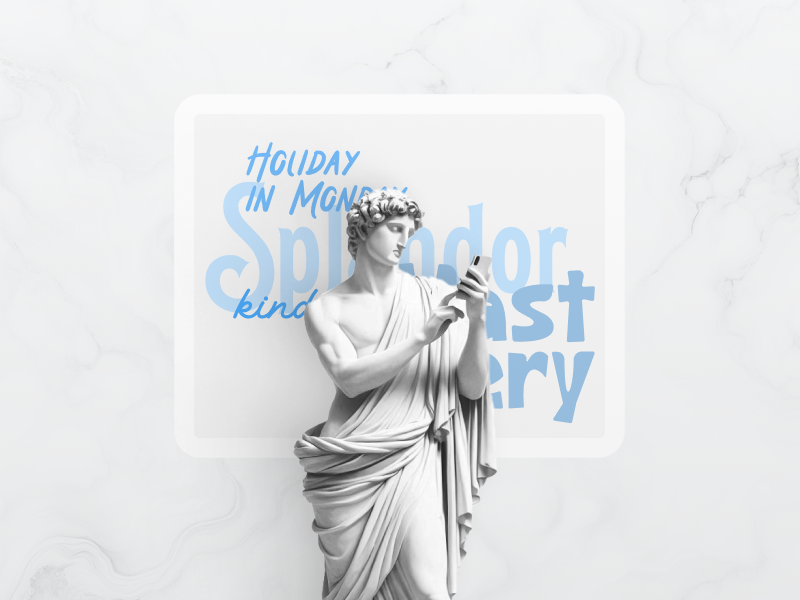
Are you looking for a unique design element to give your project a fun and whimsical feeling? Have you already considered using playful fonts?
While most website designs are built using a handful of the same classic fonts, there are millions of typefaces out there waiting for you to choose them and elevate your design.
Typography is at the core of any design project. The font you choose for your design, regardless if it is for website homepages, logo designs, or social media posts, says a lot about the brand identity and values. So, if you want to give your design a fun and frisky style, playful typefaces are a good option.
However, choosing a playful font can present some challenges, especially in finding a balance between playfulness and professionalism.
In this article, I’ll share some crucial steps my Los Angeles web design agency follows to ensure selecting the best font for a project. Plus, you’ll find a list with 14 of the top playful fonts you can use to spark creativity in your new design.
The importance of typography in web design is paramount. Depending on the font you choose, you can paint a unique narrative that communicates the brand’s essence and mission. This crucial design element affects how viewers perceive the design, and when chosen right, it can create a memorable and enjoyable user experience.
Typically, most designers stick to traditional typefaces. However, if you want a brand to stand out for its uniqueness and creative personality, a more unconventional font is the right path. Playful fonts can enhance a business’s branding and foster deeper connections with its target audiences.
But how do you know if playful typefaces are a fit? And how can you pick the best one? These are some basic steps I follow when selecting a font for a client. I adapted these tips to make it more relatable to a playful font search:
Just like colors and shapes, typography has a psychology behind it. Each font family conveys a unique feeling, from authority and luxury to innovation and playfulness.
There are 4 major font style categories you can choose from:
Understanding the psychology behind a font can help you make a smart choice and inject your design with the emotion you are aiming for. As you can see from those 4 categories, if you are looking to give your design a playful vibe, display and sans-serif fonts are excellent options, while some script fonts can also do the trick.
Each brand has a unique message and mood. It’s crucial that all design elements, including typography, support the image the brand wants to show to its audience.
Before choosing a font, it’s essential you understand the brand’s identity so you can find a typeface that matches its tone. You can start by brainstorming some words that describe the business. For example, if the brand identifies as “creative,” “fun,” “interactive,” “educational,” and “friendly,” then playful fonts are a match.
Besides understanding the brand’s identity, it’s fundamental to get to know your target audience. Knowing who will consume your design is crucial to selecting an appropriate font.
Ask yourself, “Who will view or use my design?” Usually, the client will give the designer a brief with the ideal audience demographics beforehand. Use that information to learn about the users’ expectations and which font styles better adapt to their needs.
Typically, young audiences respond better to bold, fun fonts. Playful fonts also work for projects aimed at creative individuals seeking innovative and positive offerings.
Regardless of how artistic and alternative the design is, customers should still be able to easily understand and read your design. Display fonts tend to be more creative and jazzy, but that doesn’t mean compromising legibility.
When going through playful fotns, make sure to select one that promotes clarity and accessibility. Choosing accessible fonts will ensure an enjoyable experience for all your users.
The purpose of the design will also guide you on your font search journey. For example, playful fonts work well for logo designs, headlines, website headers, and social media imagery. They are also great for kids’ educational content, where you can use fun fonts to keep readers engaged and paying attention to the content.
Do you think your project can benefit from playful typography? Here is a list of 14 great playful fonts you can use on your next project: